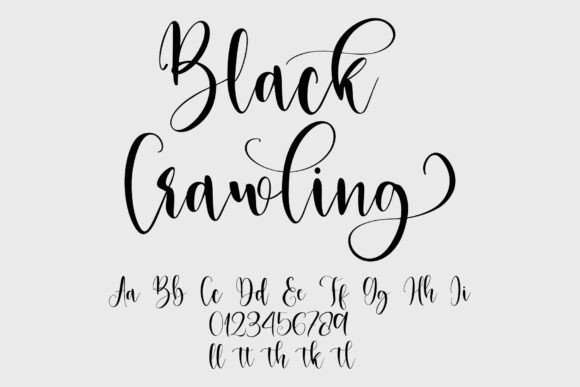
Black Crawling Font: Elevate Your Design with Elegance and Sophistication
In the realm of typography, fonts play a pivotal role in defining the visual identity of a project. Whether it’s for logos, branding, invitations, or any other creative endeavor, the choice of font can significantly influence how the message is perceived by the audience. Among the myriad of fonts available, the Black Crawling font stands out for its sleek and modern design, coupled with elegant and flowing letterforms. This article delves into the world of Black Crawling font, exploring its features, applications, and the value it brings to designers and businesses alike.
What is Black Crawling Font?
Black Crawling is a premium script font that embodies a sleek and modern aesthetic. Its design is characterized by elegant and flowing letterforms, which lend a touch of sophistication to any project. The uniqueness of Black Crawling lies in its ability to seamlessly blend modernity with classic elegance, making it a versatile choice for various design needs.
Key Features of Black Crawling Font
- Sleek and Modern Design: Black Crawling boasts a contemporary look that is sure to make your designs stand out.
- Elegant and Flowing Letterforms: The font’s elegant flow adds a touch of sophistication and luxury to any text.
- Versatility: Suitable for a wide range of applications, from logos and branding to invitations and more.
- Premium Quality: As a premium script font, Black Crawling is crafted with meticulous attention to detail, ensuring high-quality appearance in any design.
Applications of Black Crawling Font
The versatility of Black Crawling font makes it an excellent choice for various design projects. Here are some of the key areas where this font can make a significant impact:
- Logos and Branding: Create a lasting impression with a logo that exudes elegance and modernity. Black Crawling font can help establish a brand’s identity with a sophisticated look.
- Invitations and Events: Whether it’s a wedding invitation, a corporate event, or a product launch, Black Crawling adds a touch of class and luxury, setting the tone for the event.
- Marketing and Advertising: Stand out in the crowded marketplace with marketing materials that feature sleek and modern typography. Black Crawling can elevate your advertising campaigns, making them more engaging and memorable.
- Packaging: For products that aim to convey a sense of luxury and quality, Black Crawling font can be a perfect choice for packaging designs.
Benefits of Using Black Crawling Font
Choosing Black Crawling font for your design projects comes with several benefits:
- Uniqueness: The font’s unique style ensures that your designs have a distinctive look that sets them apart from the competition.
- Professionalism: The elegant and modern design of Black Crawling conveys a sense of professionalism, which is crucial for businesses and brands.
- Flexibility: This font can be used across various platforms, from digital media to print, without losing its appeal.
- Time-Saving: With a font that already exudes sophistication and elegance, designers can save time that would otherwise be spent on custom typography design.
Tips for Effectively Using Black Crawling Font
To maximize the impact of Black Crawling font in your designs, consider the following tips:
- Pair with Complementary Fonts: When using Black Crawling alongside other fonts, choose ones that complement its elegance and modernity.
- Consider the Context: Ensure that the font aligns with the message and tone of your project. Black Crawling is versatile, but its suitability can vary depending on the context.
- Adjust Size and Color Wisely: The right size and color can enhance the font’s appearance. Experiment with different sizes and colors to find what works best for your design.
- Maintain Readability: While Black Crawling is elegant, ensure that it remains readable, especially when used for longer texts or in smaller sizes.
Black Crawling font is a powerful tool for designers and businesses looking to add a touch of sophistication and elegance to their projects. With its sleek and modern design, elegant letterforms, and versatility, it stands out as a premium script font that can elevate any design. By understanding its features, applications, and the benefits it offers, designers can effectively utilize Black Crawling font to create visually stunning and impactful designs.
In the world of typography, fonts like Black Crawling remind us of the power of elegant design in communication. As we continue to seek ways to make our messages stand out, embracing high-quality, modern fonts can make all the difference. Black Crawling font, with its unique blend of modernity and elegance, is poised to become a favorite among designers and businesses aiming for sophistication and impact.